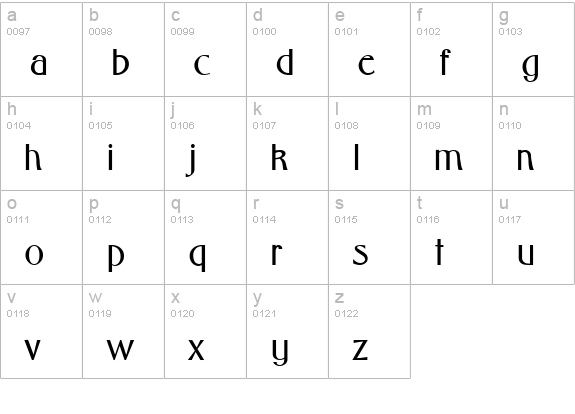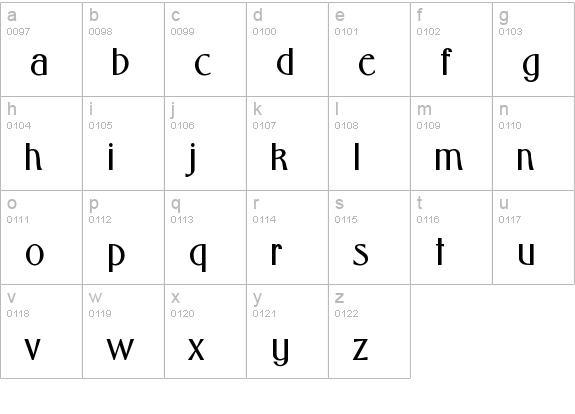
Wright Bold is a strong, high-contrast variant in the Wright typeface family \xE2\x80\x94 well suited to headlines, attention-grabbing titles, and strong calls-to-action.